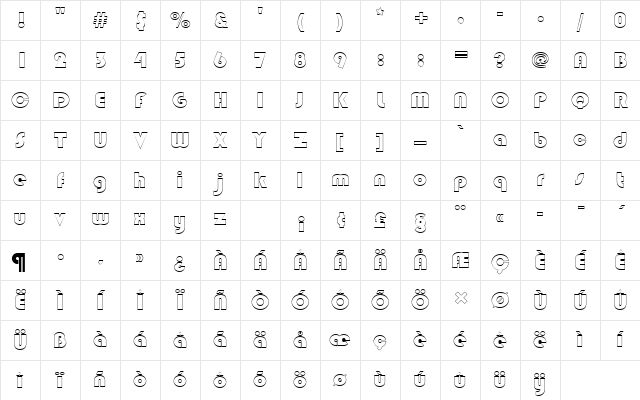
Complete BlippoBlaDOu1 Regular glyph index. Displaying only characters natively supported by BlippoBlaDOu1 Regular font.
BlippoBlaDOu1 is a composed and adaptable typeface that performs quietly and consistently across a wide range of design contexts.